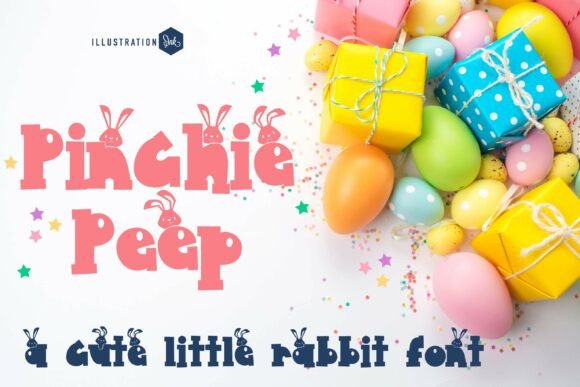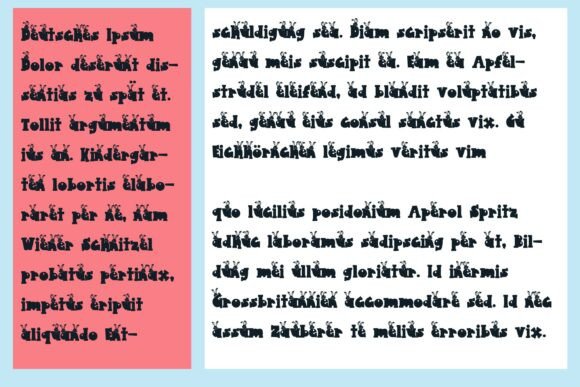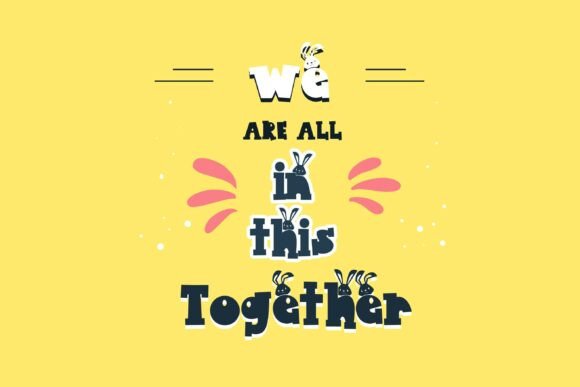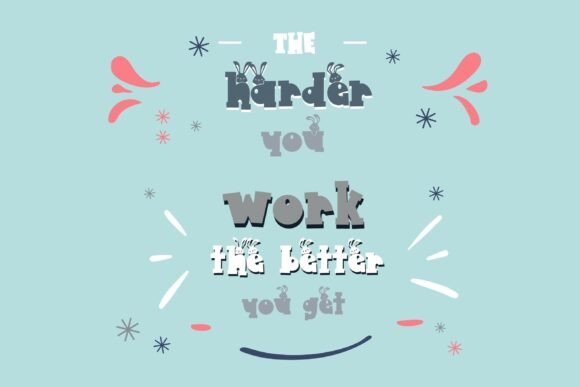
Pinchie Peep Font: A Cute Handwritten Serif Font for DIY & Cricut
About the Pinchie Peep Font
Meet Pinchie Peep Font, a stunning font that brings a touch of elegance and professionalism to any design. This hand-crafted font is a whimsical serif with bunnies poking out here and there.
Pinchie Peep’s whimsical nature makes it ideal for children’s books, branding for playful businesses (e.g., toy stores, bakeries), or eye-catching headlines on invitations and greeting cards. However, its decorative elements make it unsuitable for body text or UI elements requiring high readability. The playful bunnies might distract from longer content.
Pairing Pinchie Peep effectively requires a contrasting but complementary font. A clean sans-serif like Open Sans would provide a solid, readable counterpoint for body text, while a simple script font could add a touch of elegance to supporting text without competing visually. Avoid pairing it with other highly decorative fonts.
The overall personality of Pinchie Peep is undeniably playful and friendly, conveying a sense of childlike wonder and charm. Its hand-crafted feel adds a touch of authenticity, perfect for projects emphasizing handcrafted or artisanal products.
Pinchie Peep Font Usage Examples
Pinchie Peep Font Example